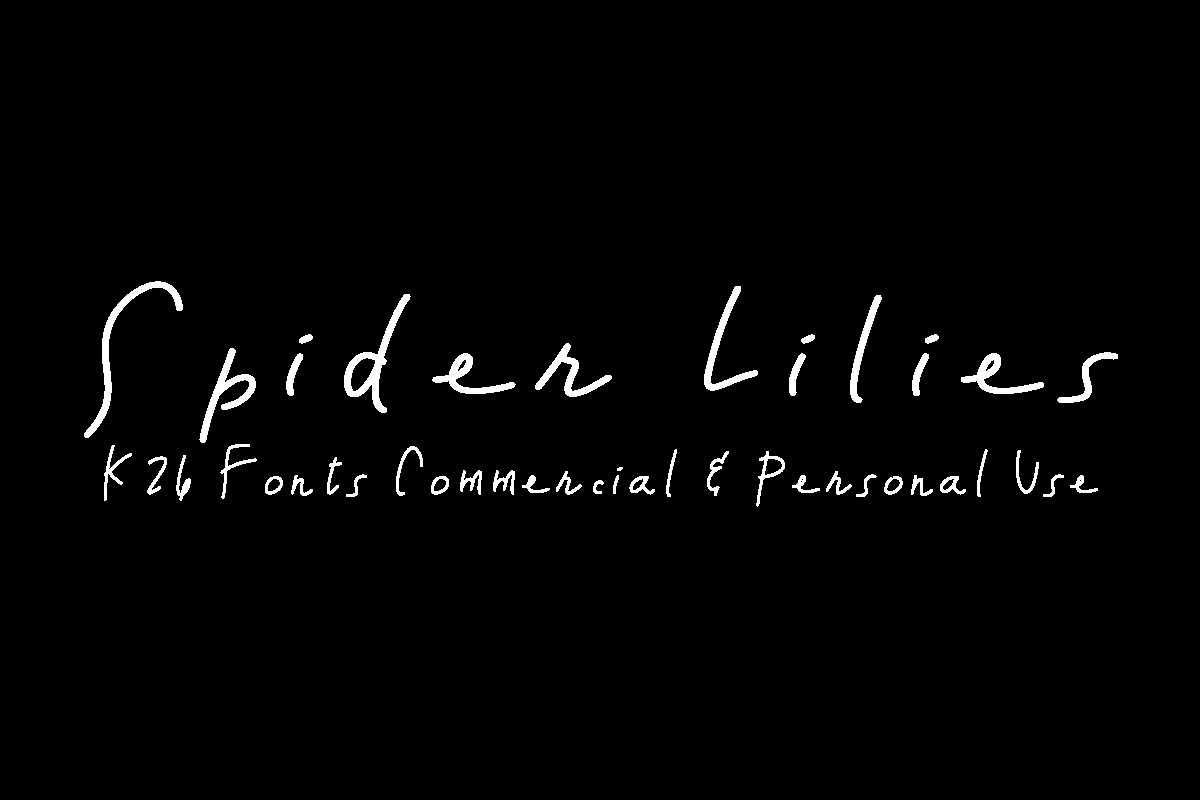
K26 Spider Lilies Font
About K26 Spider Lilies Font
Spider Lilies is a simple yet sophisticated handwritten script, with a monoline quality and irregular baseline–perfectly casual, Spider Lilies can add charm to your work.